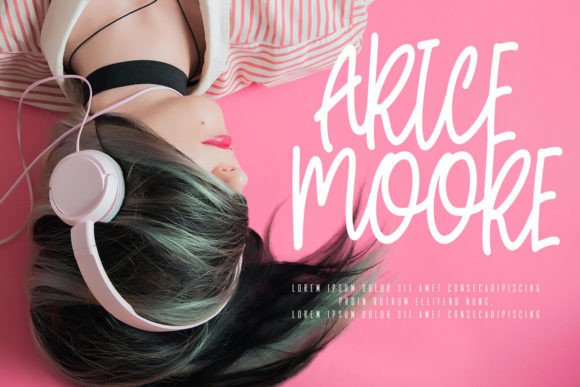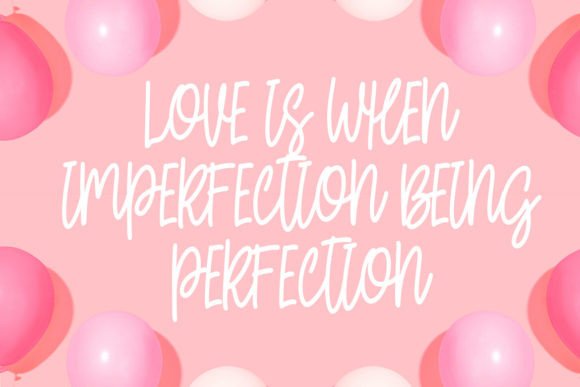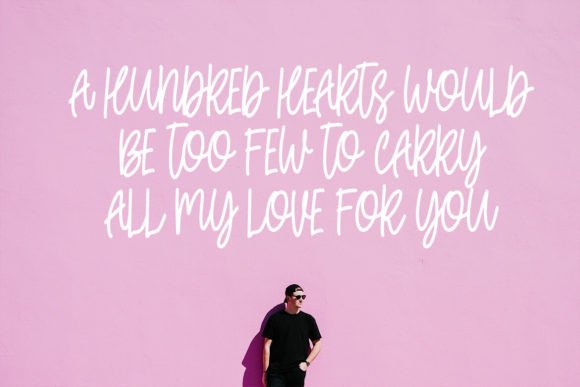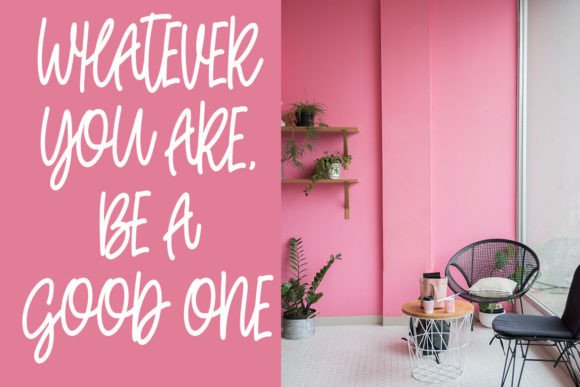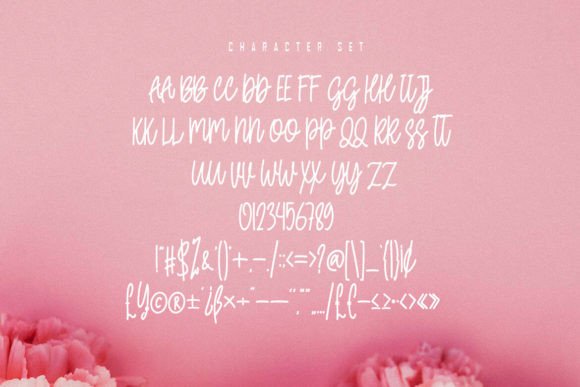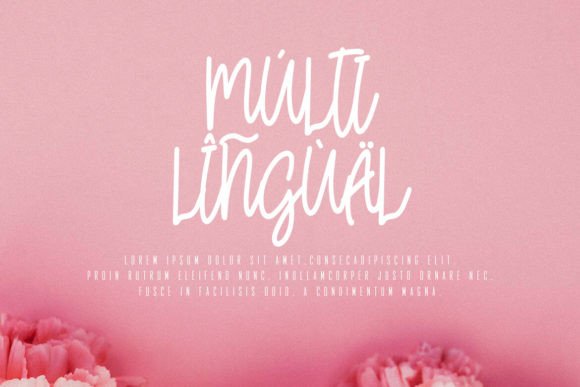
Introduction to Rastany Font Font
Fonts play a crucial role in design, and the Rastany Font font is a typeface that brings both character and versatility to any project. Whether you’re working on a branding project, a website, or a print design, the Rastany Font font offers a unique style that can elevate your work.
Rastany Stylish Script Font with a modern and cool style designed with many features more encoded PUA and more than , suitable for promotion, business, company, clothing, wedding and more.
Rastany Stylish Script Font with a modern and cool style designed with many features more encoded PUA and more than , suitable for promotion, business, company, clothing, wedding and more
The Rastany Font font is more than just a typeface – it’s a design tool that helps you communicate your message with style and clarity. Its unique character set and versatile design make it suitable for a wide range of applications, from elegant invitations to bold headlines.
With its carefully crafted letterforms and balanced proportions, the Rastany Font font ensures readability and visual appeal across all mediums.
The Rastany Font font stands out with its unique design, exceptional readability, and versatility across various design applications.